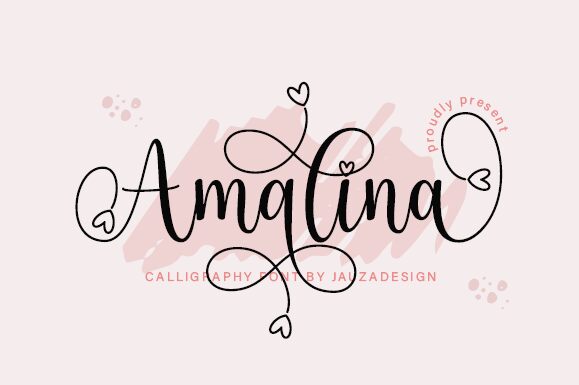
Dive into the enchanting world of Amalina, a semi-light font designed by Danar Nugroho that exudes charm and elegance. With its thin lettering and ravishing cute calligraphy style, this font stands out as a masterpiece of design. It's not just about the allure; Amalina is also wonderfully practical, being PUA encoded to ensure designers can effortlessly tap into its full array of glyphs and swashes.
From wedding invitations to branding materials, Amalina promises versatility across a spectrum of creative projects. Its delicate features are perfect for crafting an air of sophistication and warmth, making it an ideal choice for those who wish to convey beauty through type. Embrace the graceful touch of Amalina in your next project and watch as your designs bloom with personality and style.